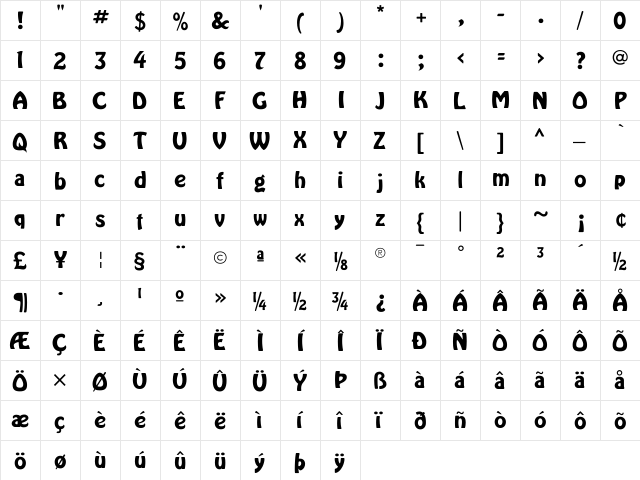
HarlequinFLF Bold
Design Context for HarlequinFLF Typeface
HarlequinFLF takes a measured approach to typography — its balanced proportions and neutral character make it a reliable workhorse for both digital and print work. The heavy weight commands attention and anchors typographic hierarchies.